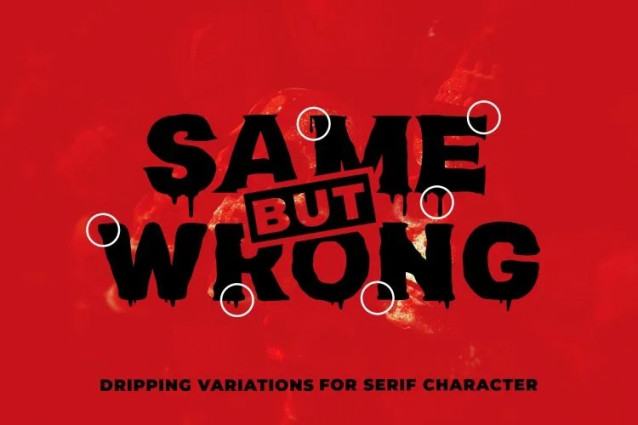
Blood Melt Font
Blood Melt Font, a bold display typeface that doubles as a freaky font perfect for horror projects, memes, and edgy branding. Its melting, liquid‑like strokes instantly create a creepy atmosphere, making every headline unforgettable.
This freaky text font is inspired by classic horror signage and vintage B‑movie posters, combined with a modern dripping texture that feels alive. Whether you’re designing a Halloween event banner, a game logo, or a viral freaky font meme, Blood Melt delivers maximum impact.